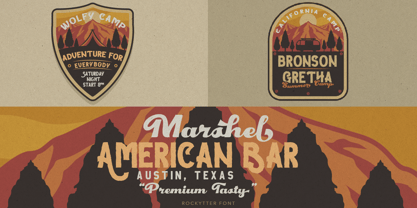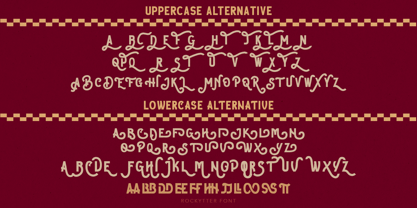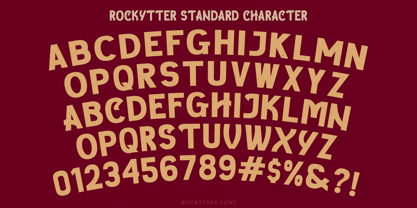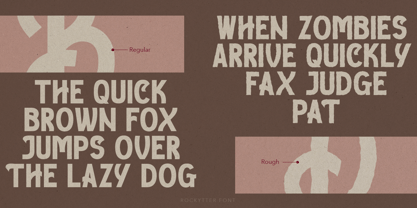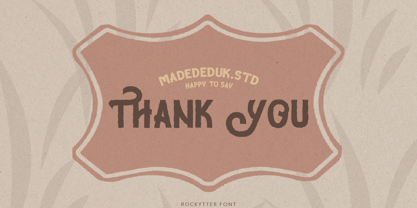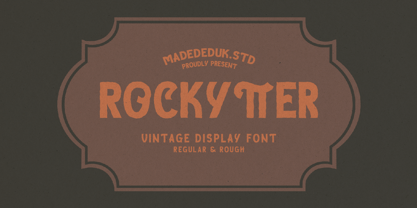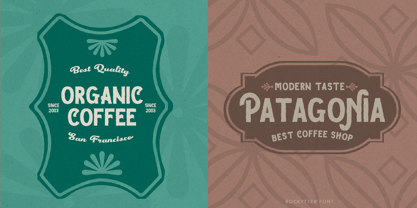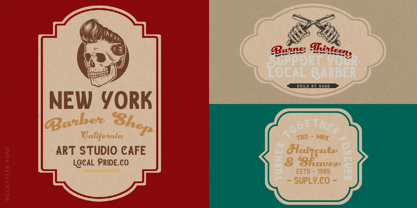
Rockytter
by madeDeduk
The Rockytter Font Family was designed by madededuk and published by madeDeduk. Rockytter contains 2 styles and family package options. More about this family
Really excited to introduce Rockytter is a vintage display font. It easily cooperates together and is perfect for creating the traditional style great for quotes and easily make a logotype or badge for your logo with this font. Come with special features regular and textured with a lot of alternative and ligature style.